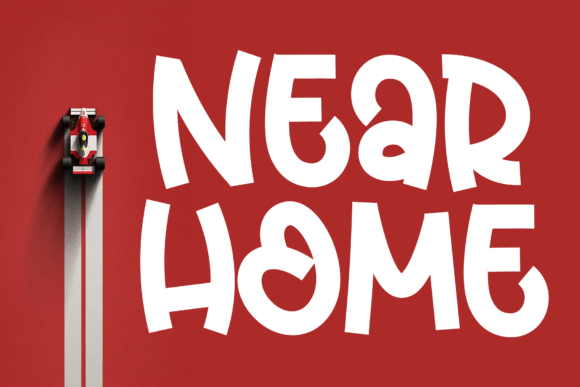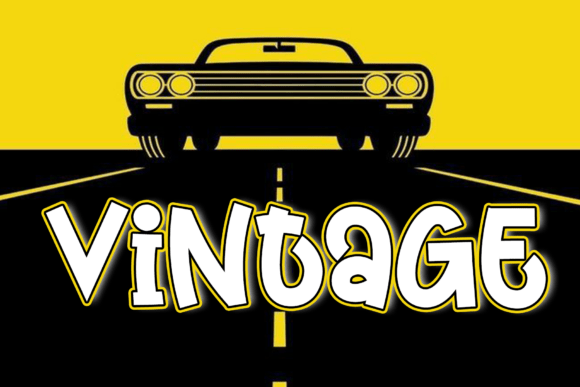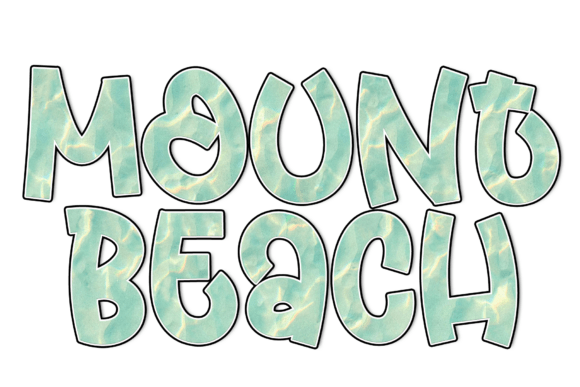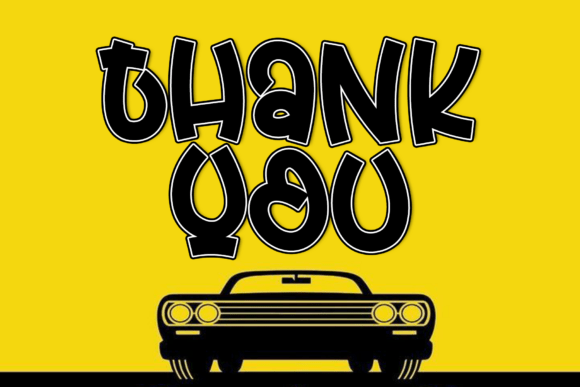
Introducing Face Smart Font: The Ultimate Choice for Creative Designs
Are you a designer or crafter looking for a font that can elevate your creative projects to the next level? Look no further than Face Smart Font, a lovely and timeless handwritten font that is perfect for creating eye-catching logos, branding, and quotes.
The Unique Charm of Face Smart Font
What sets Face Smart Font apart from other fonts is its unique and beautiful touch. Every letter has been carefully crafted to bring a sense of elegance and sophistication to your designs. Whether you’re creating a logo, branding materials, or inspirational quotes, Face Smart Font is the perfect choice.
Why Choose Face Smart Font?
So, why should you choose Face Smart Font for your design projects? Here are just a few reasons:
- Timeless appeal: Face Smart Font has a classic, timeless quality that will never go out of style. Whether you’re creating a design for a client or for your own brand, this font will ensure that your work looks professional and sophisticated.
- Unique character: Every letter in Face Smart Font has been carefully crafted to bring a sense of personality and charm to your designs. This font is perfect for designers who want to add a touch of whimsy and elegance to their work.
- Ease of use: Face Smart Font is easy to read and use, making it perfect for a wide range of design projects. Whether you’re creating a logo, brochure, or social media graphics, this font will help you to communicate your message with clarity and style.
- Versatility: Face Smart Font is a versatile font that can be used for a wide range of design projects. Whether you’re creating a formal or informal design, this font will adapt to your needs.
How to Use Face Smart Font in Your Designs
Using Face Smart Font in your designs is easy. Here are a few tips to get you started:
- Pair it with other fonts: Face Smart Font looks great when paired with other fonts. Try pairing it with a bold sans-serif font for a striking contrast.
- Experiment with colors: Face Smart Font looks great in a range of colors. Try experimenting with different colors to find the one that works best for your design.
- Use it for headlines and titles: Face Smart Font is perfect for headlines and titles. Use it to add a touch of elegance and sophistication to your designs.
- Use it for quotes and testimonials: Face Smart Font is also great for quotes and testimonials. Use it to add a touch of personality and charm to your designs.
The Benefits of Using Handwritten Fonts like Face Smart
Handwritten fonts like Face Smart Font have a number of benefits for designers and crafters. Here are a few:
- Emotional connection: Handwritten fonts can help to create an emotional connection with your audience. They add a touch of personality and charm to your designs, which can help to build trust and rapport with your audience.
- Unique character: Handwritten fonts like Face Smart Font have a unique character that sets them apart from other fonts. They add a touch of whimsy and elegance to your designs, which can help to make them stand out.
- Flexibility: Handwritten fonts are flexible and can be used for a wide range of design projects. Whether you’re creating a formal or informal design, a handwritten font like Face Smart Font can adapt to your needs.
In conclusion, Face Smart Font is a lovely and timeless handwritten font that is perfect for creating eye-catching logos, branding, and quotes. Its unique and beautiful touch makes it a great choice for designers and crafters who want to add a touch of elegance and sophistication to their designs. With its ease of use, versatility, and timeless appeal, Face Smart Font is a great addition to any designer’s toolkit.